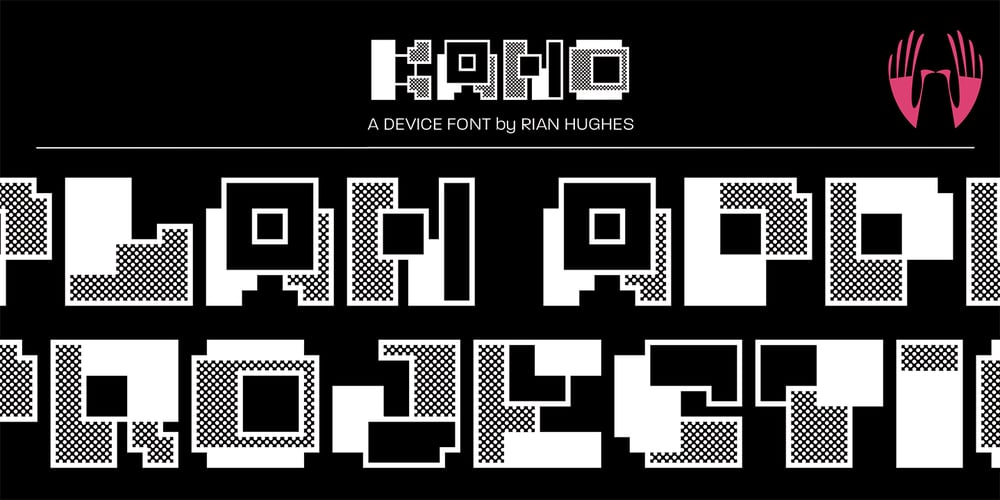
Kano Font Family was designed by Rian Hughes and published by Device. Kano contains 1 styles and family package options. Kano is inspired by the work of Dutch furniture designer and architect Gerrit Rietveld, one of the principal members of the Dutch artistic movement De Stijl. A modular headline font, constructed from white, black and grey overlapping rectangles, it is seen to best effect in short settings and at larger sizes.